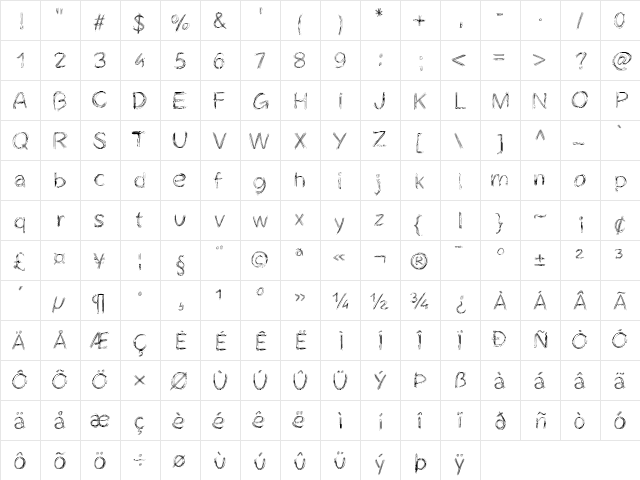
Cheveuxdange Medium
Design Context for Cheveuxdange Typeface
Cheveuxdange is a composed and adaptable typeface that performs quietly and consistently across a wide range of design contexts.